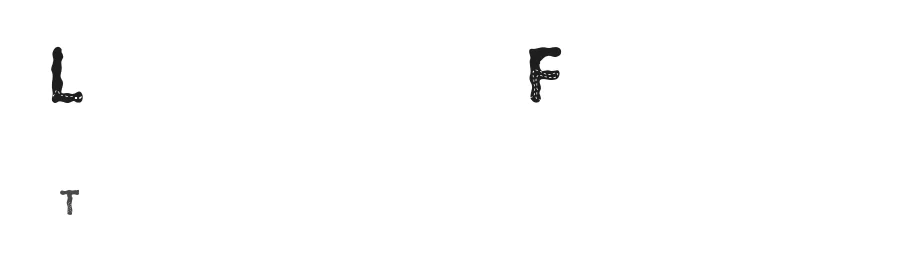
About AEZ Dots Font
AEZ Dots is a decorative font designed by Adult Ramblings. It includes 653 glyphs, a regular weight, TTF (TrueType) format, and 292 languages. AEZ Dots is free to download; check the license details on this page before commercial use. Decorative fonts like AEZ Dots work best for logos, posters, packaging, and standout headlines.
| Designer | Adult Ramblings - Anastacia E. Zittel |
AEZ Dots Font is a decorative font that shines as a display or heading face. Pair it with a clean sans-serif or serif font for body text β the contrast creates a clear hierarchy while the two styles stay balanced and easy to read.
AEZ Dots Font
AEZ Dots Font is a decorative typeface by Adult Ramblings, ideal for logos, invitations, branding, and creative projects.